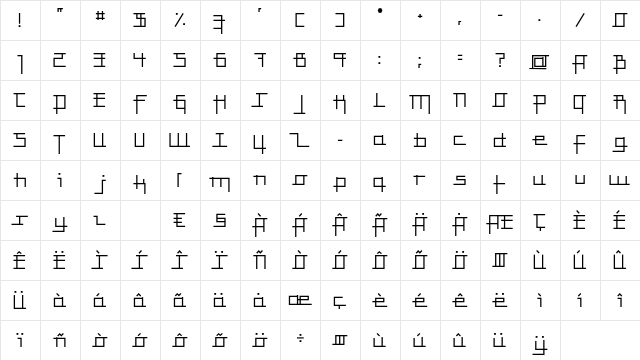
Anlinear LT Std Regular
| Foundry | Linotype GmbH |
| Designer | Michael Parson |
Design Context for Anlinear LT Std Typeface
Anlinear LT Std is a composed and adaptable typeface that performs quietly and consistently across a wide range of design contexts. The delicate stroke weight brings airiness and refinement to layouts.